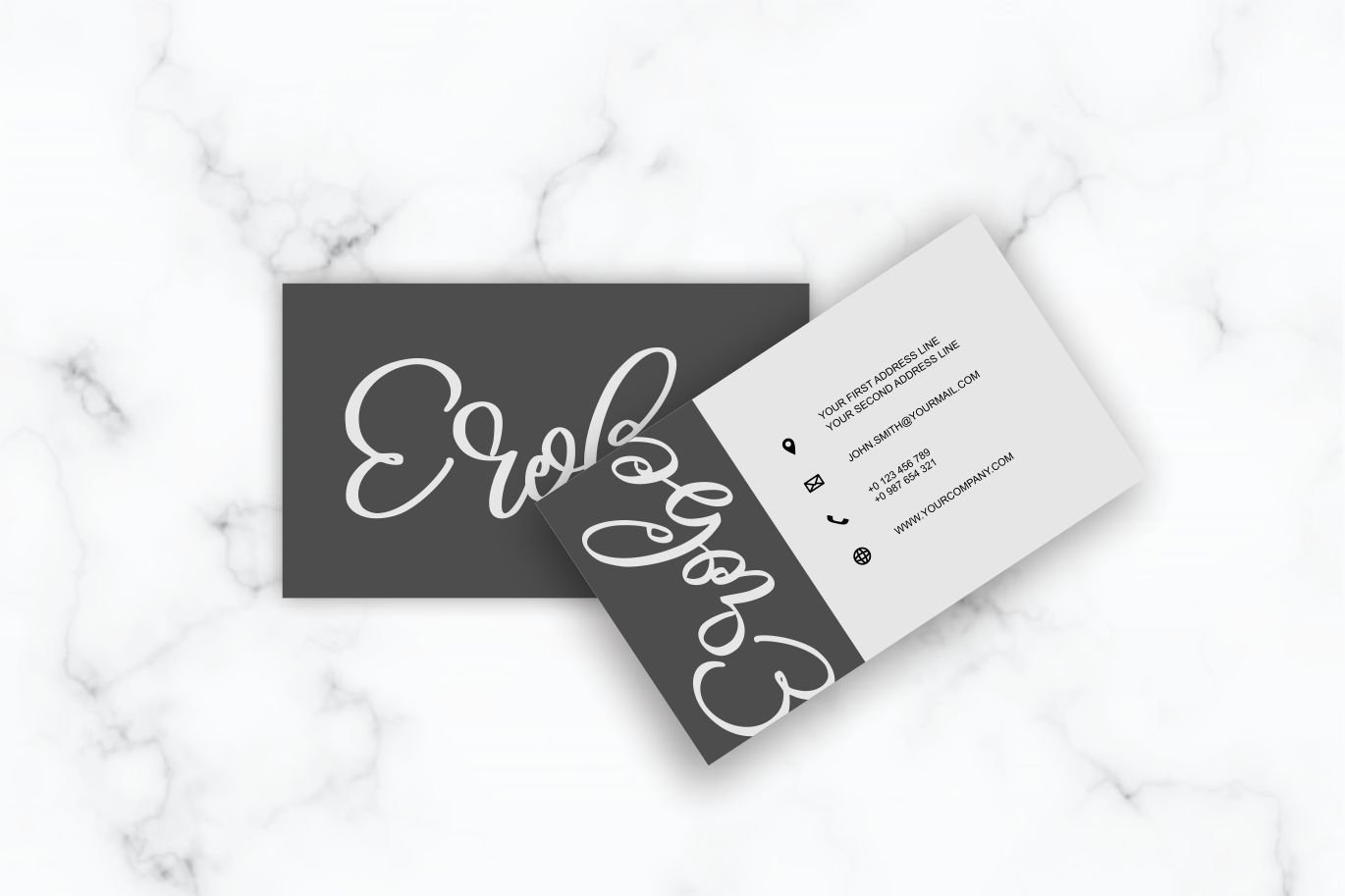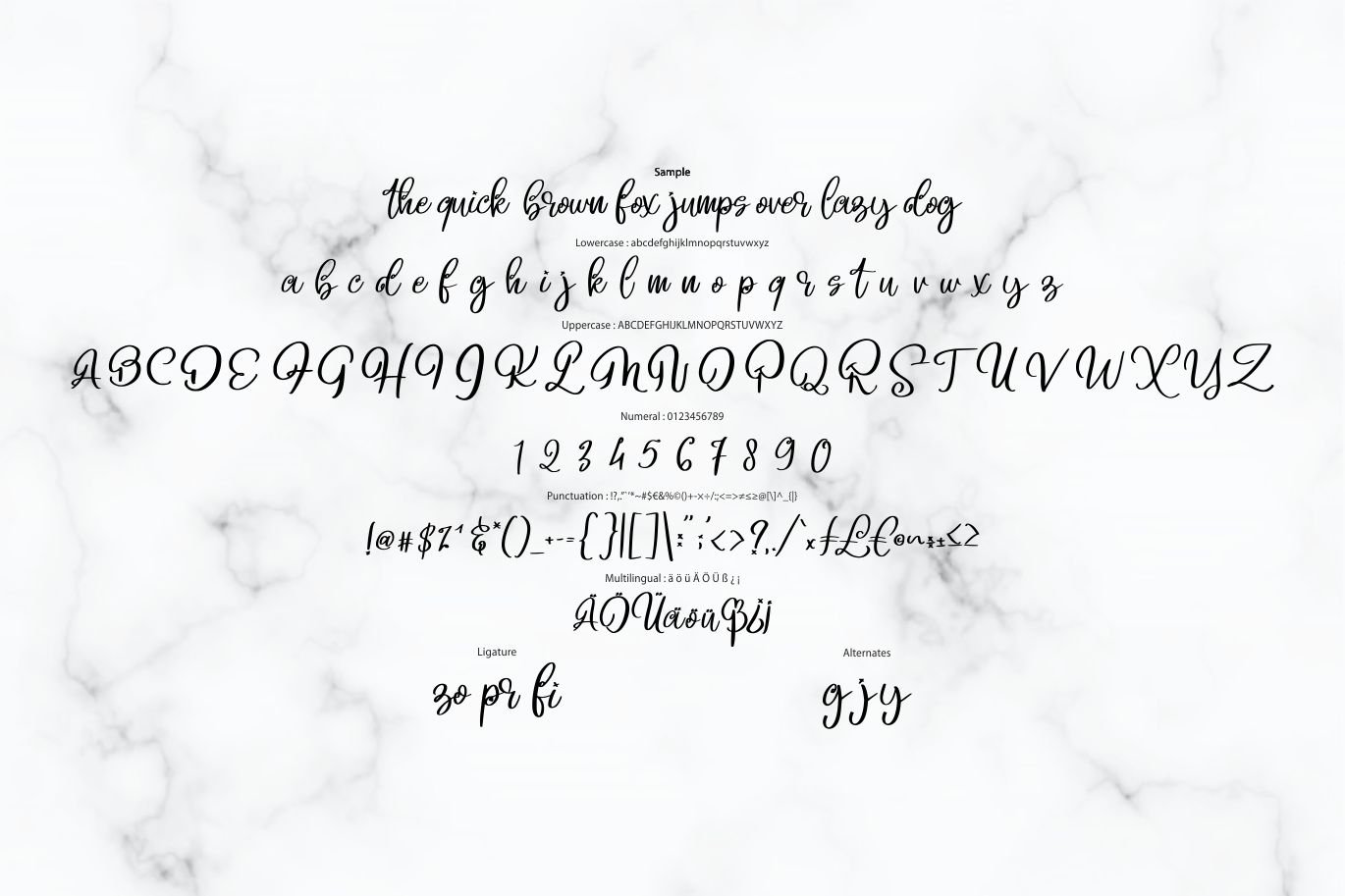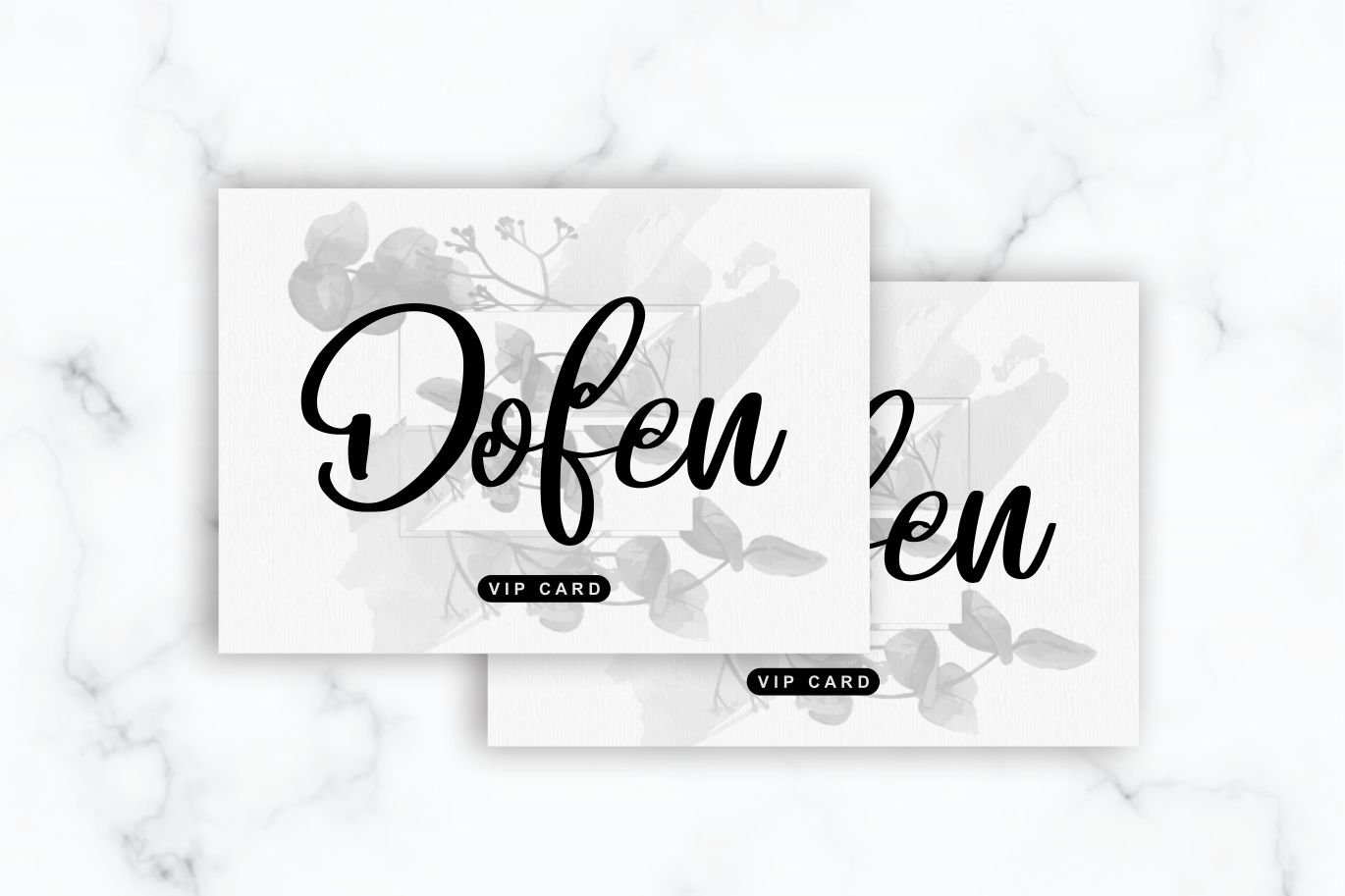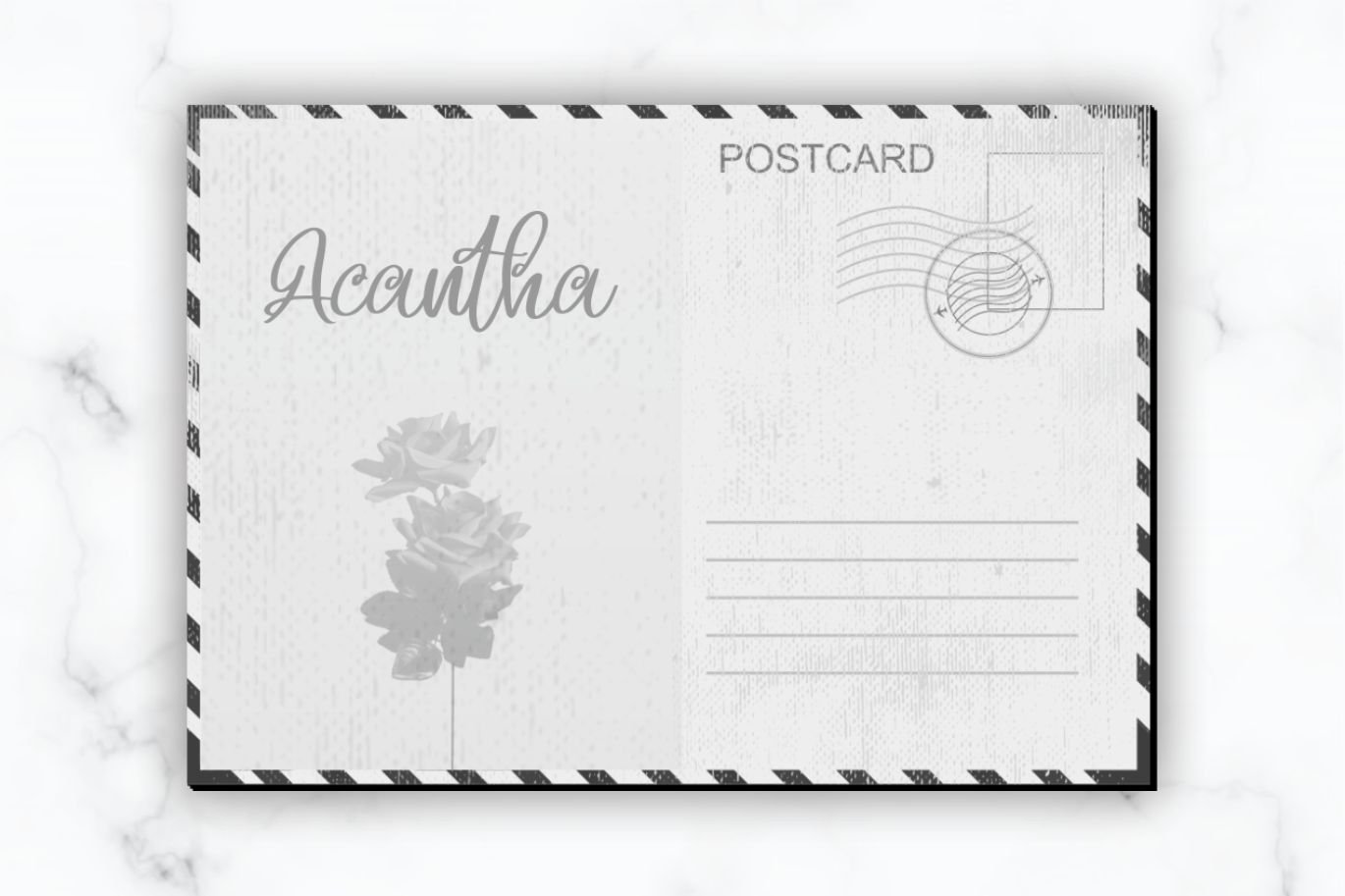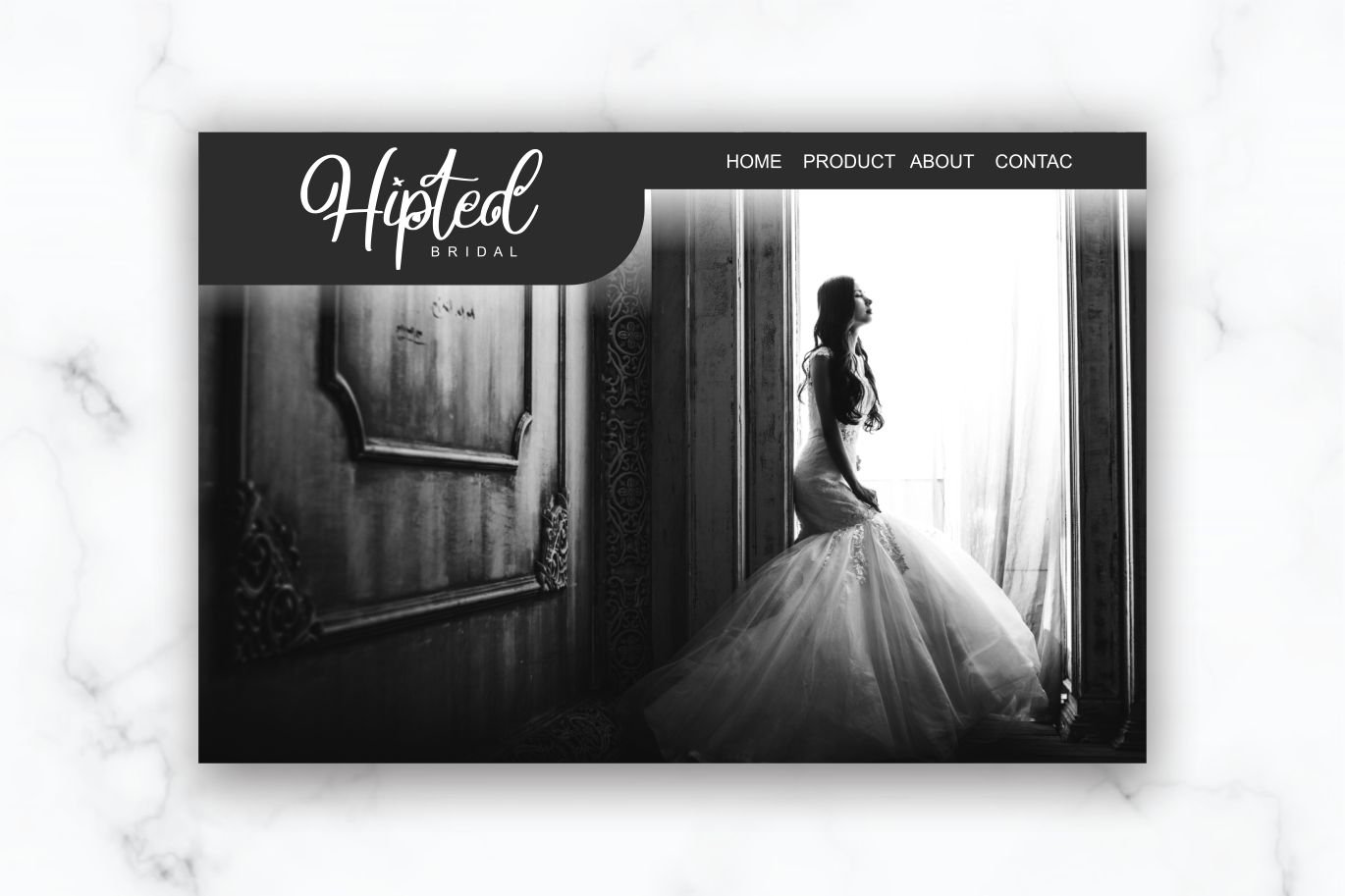
Beligo Cary | Curly Script Font
Beligo Cary | Curly Script Font with a calligraphy style, So beautiful on invitation like greeting cards, branding materials, business cards, quotes, posters, and more!